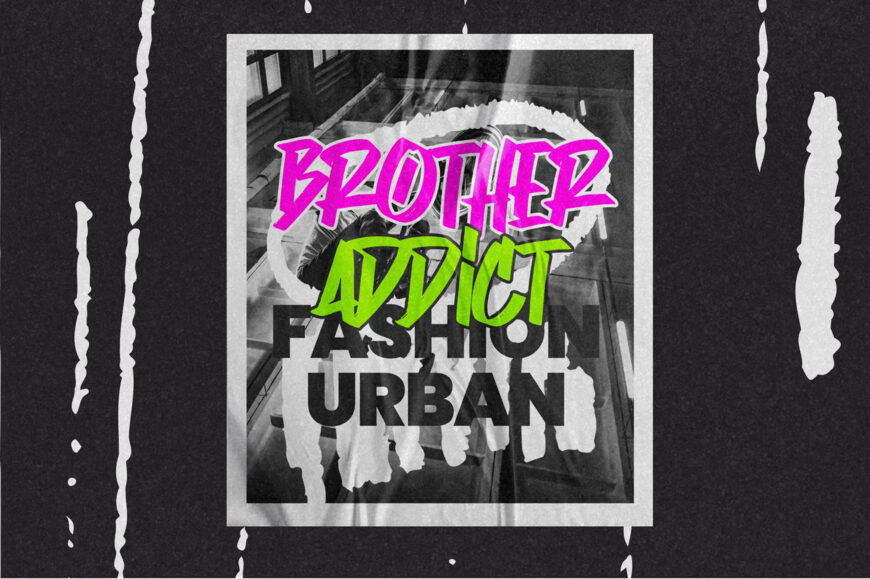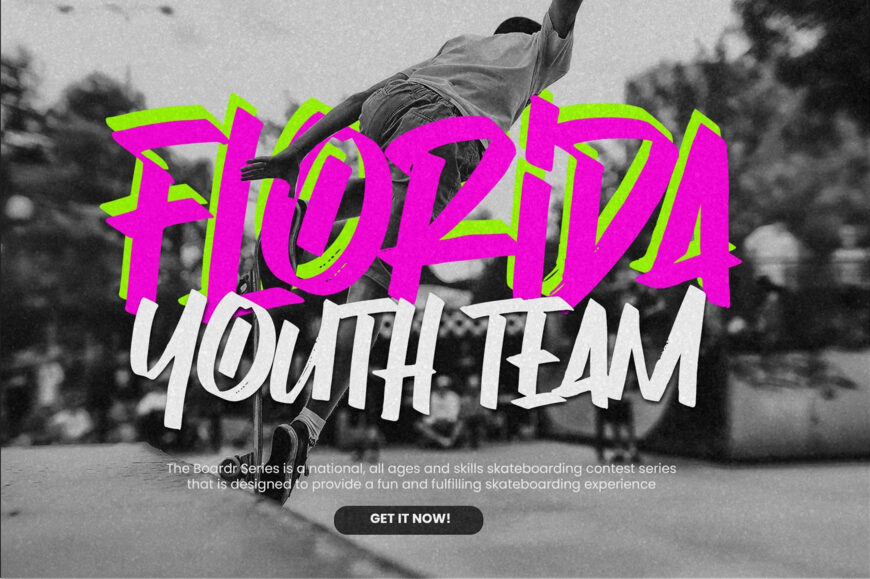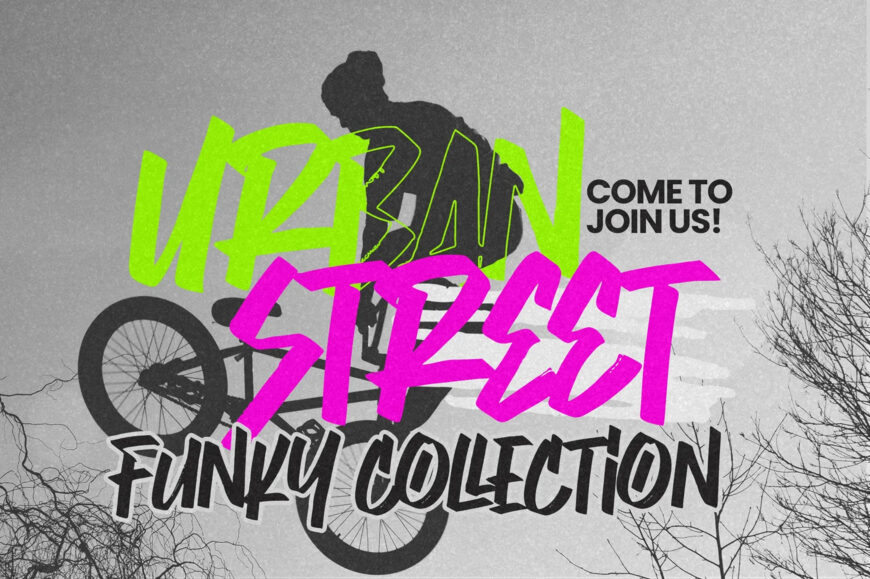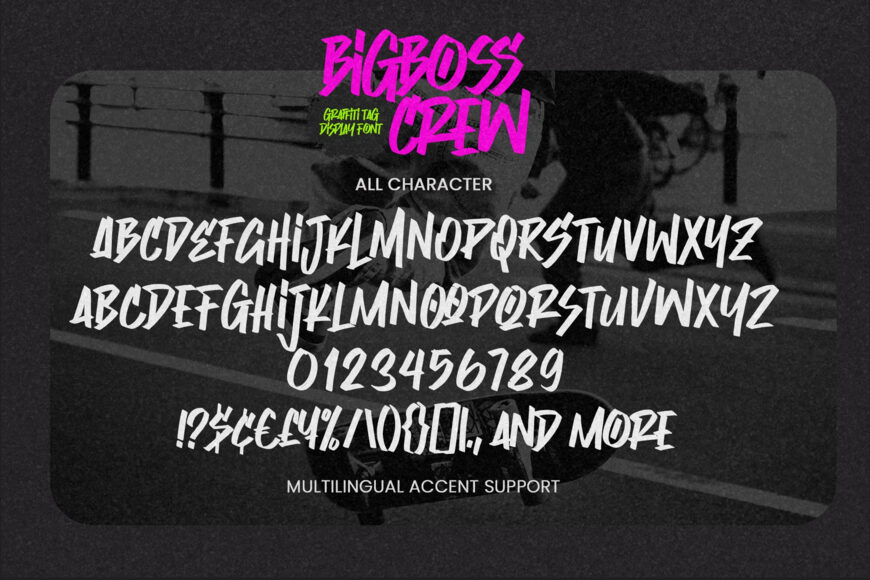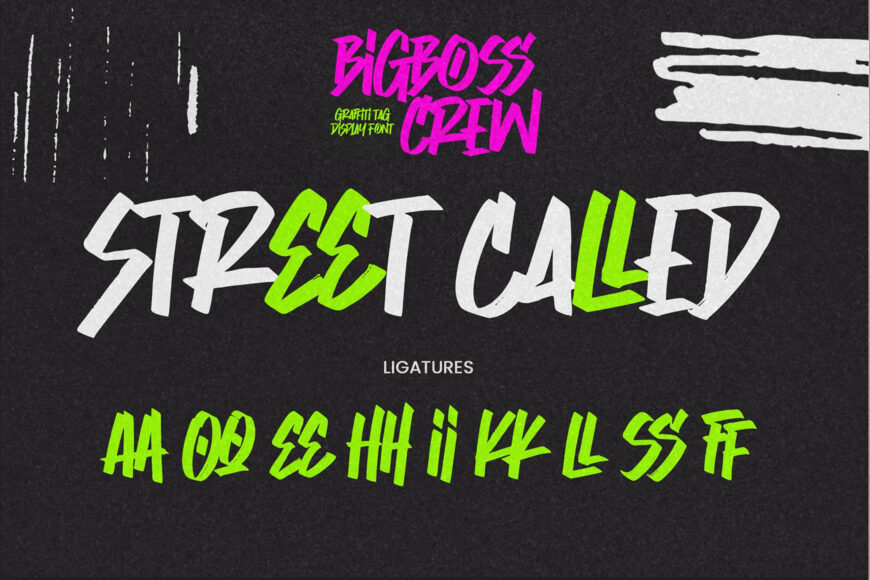
Bigboss Crew Font
Bigboss Crew is a modern graffiti display font with bold movement and a casual, fast-written feel. Its authentic, edgy style is ideal for labels, posters, branding, packaging, quotes, DIY projects, greeting cards, websites, photo overlays, signs, scrapbooking, tags, and more. Featuring a textured finish and distinctive character, it brings a natural, handcrafted look to every design.
Designed by: GasssType